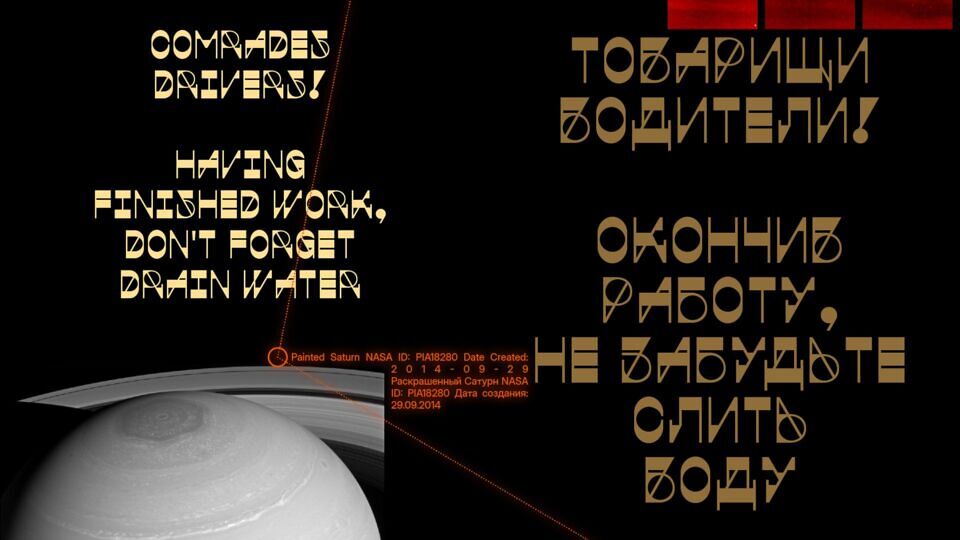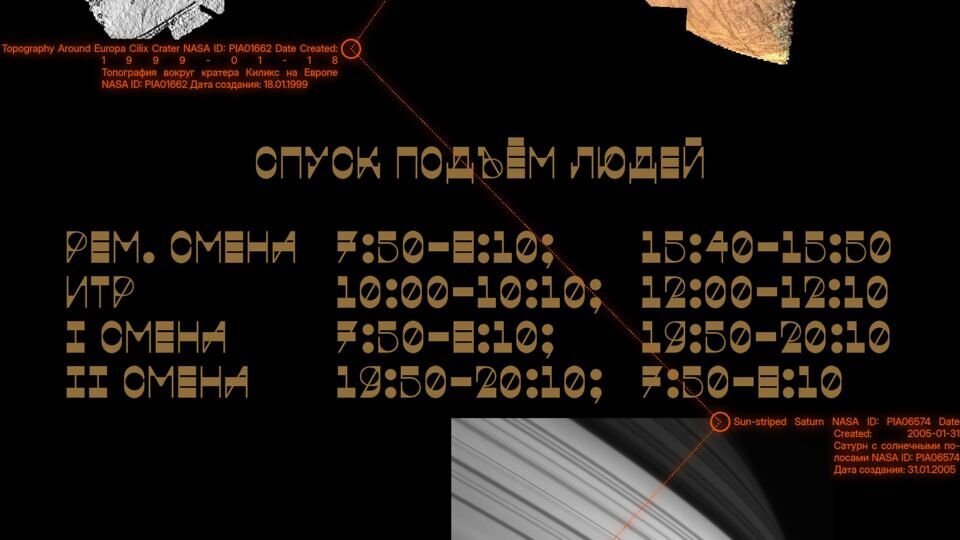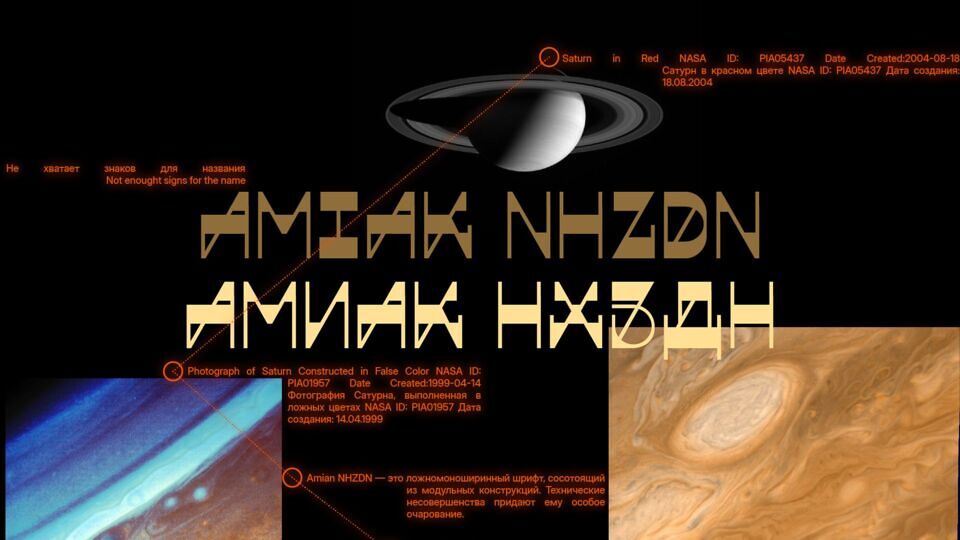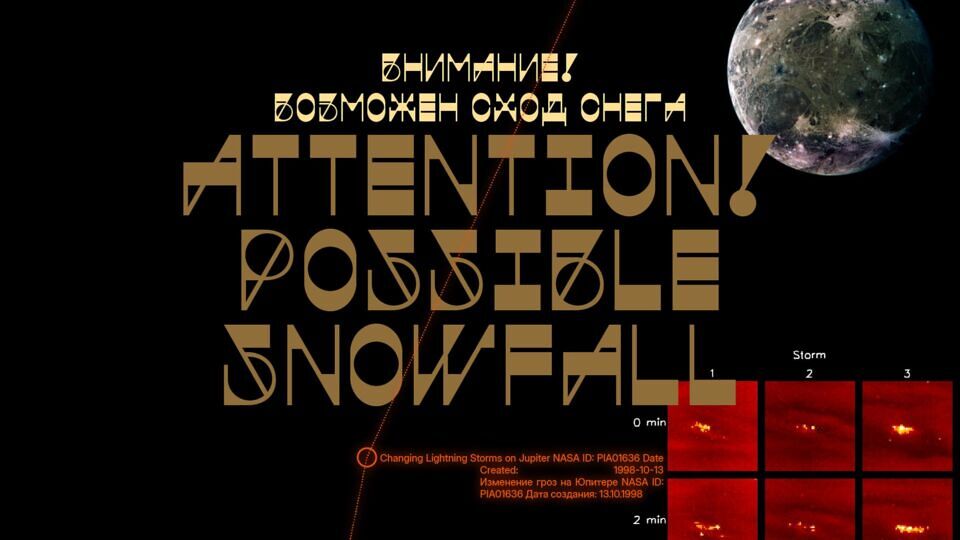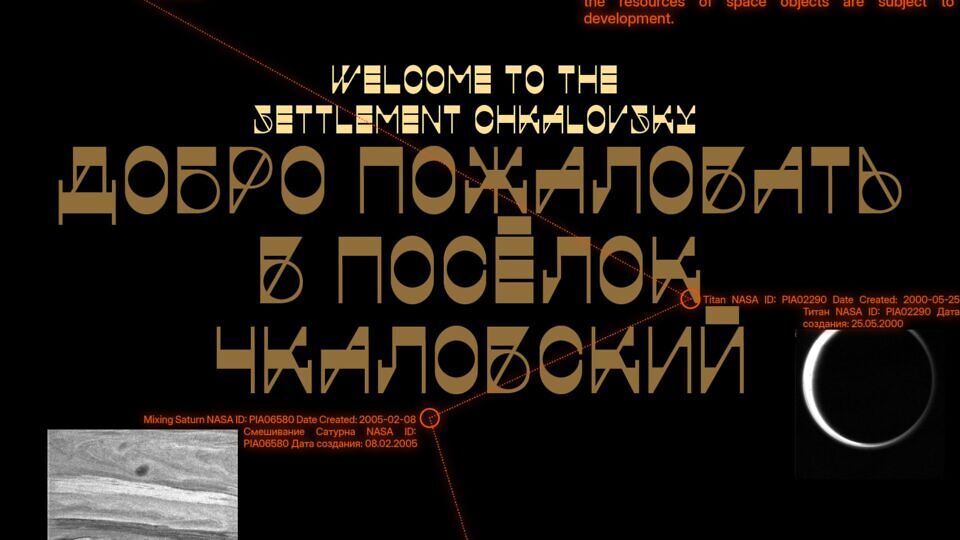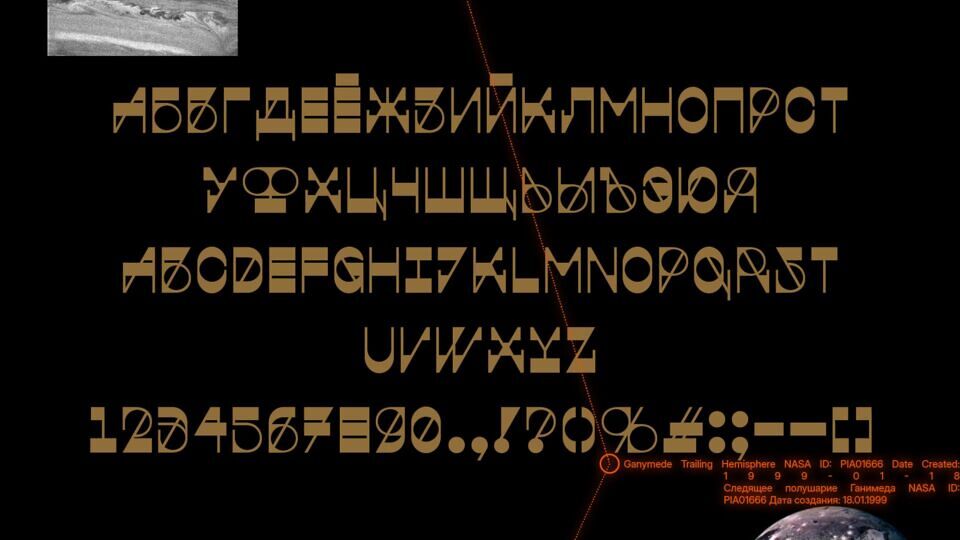
Amiak NHZDN is a striking, unconventional display typeface with reverse contrast and a faux monospaced look. Its modular geometric shapes mix precision and playful distortion, crafting a unique rhythm.
Technical flaws enhance its raw, edgy charm, evoking both experimentation and nostalgia. Bold weight shifts and fixed spacing yield a mechanical yet expressive vibe, ideal for posters, branding, headlines, and bold digital work. Blending order with chaos, Amiak NHZDN is a standout choice for designers pushing typographic boundaries.